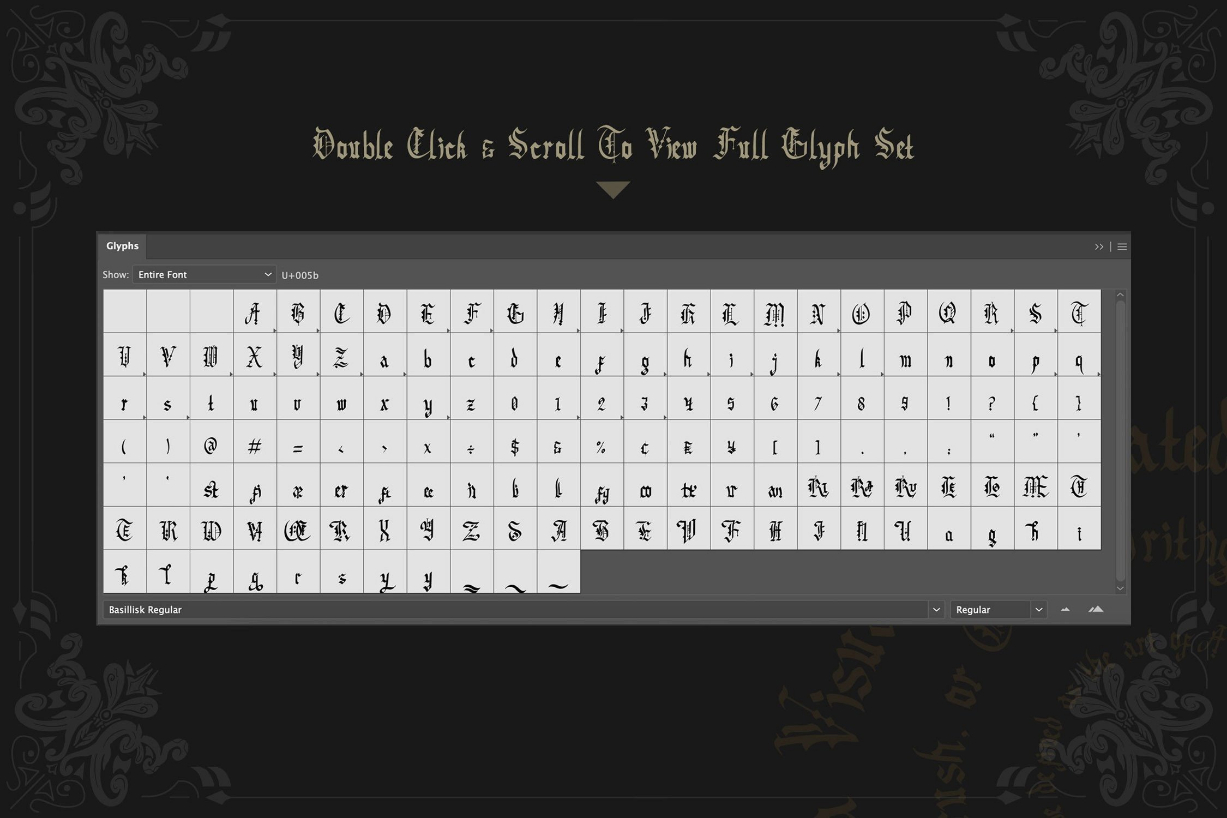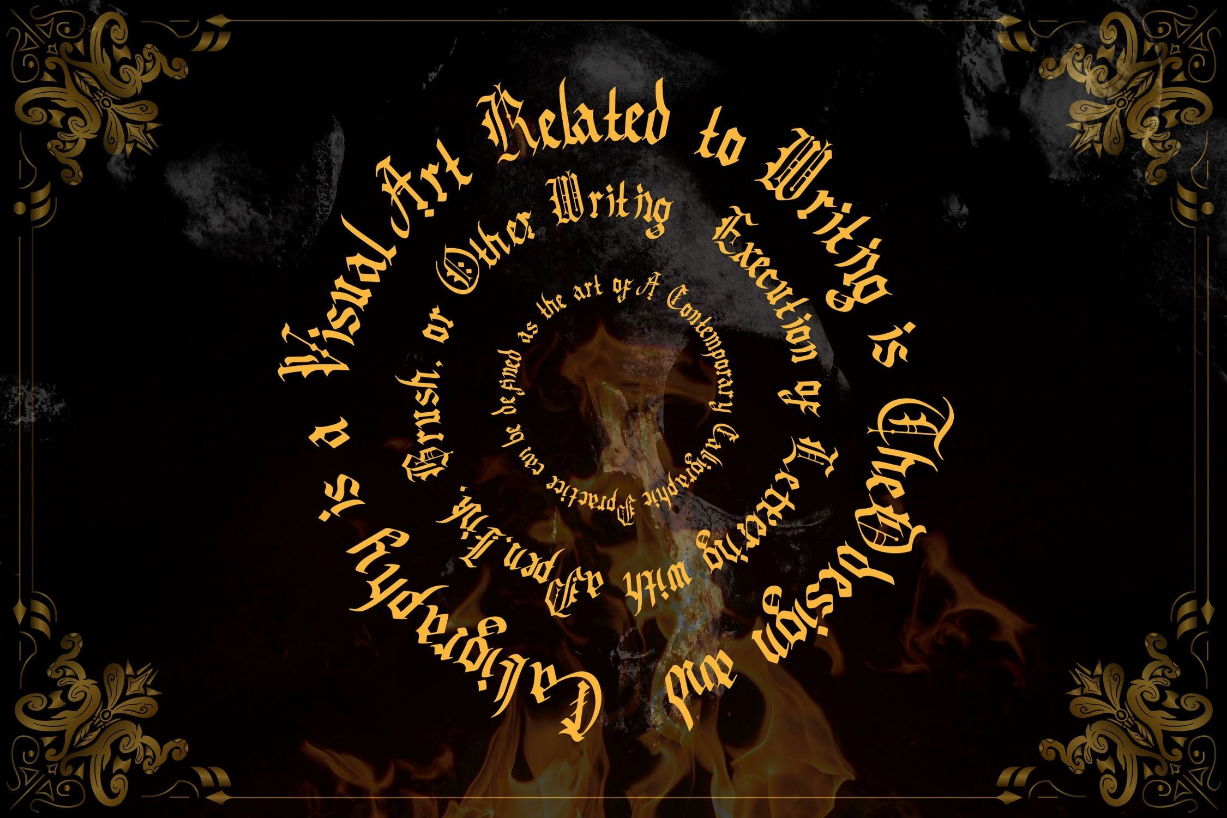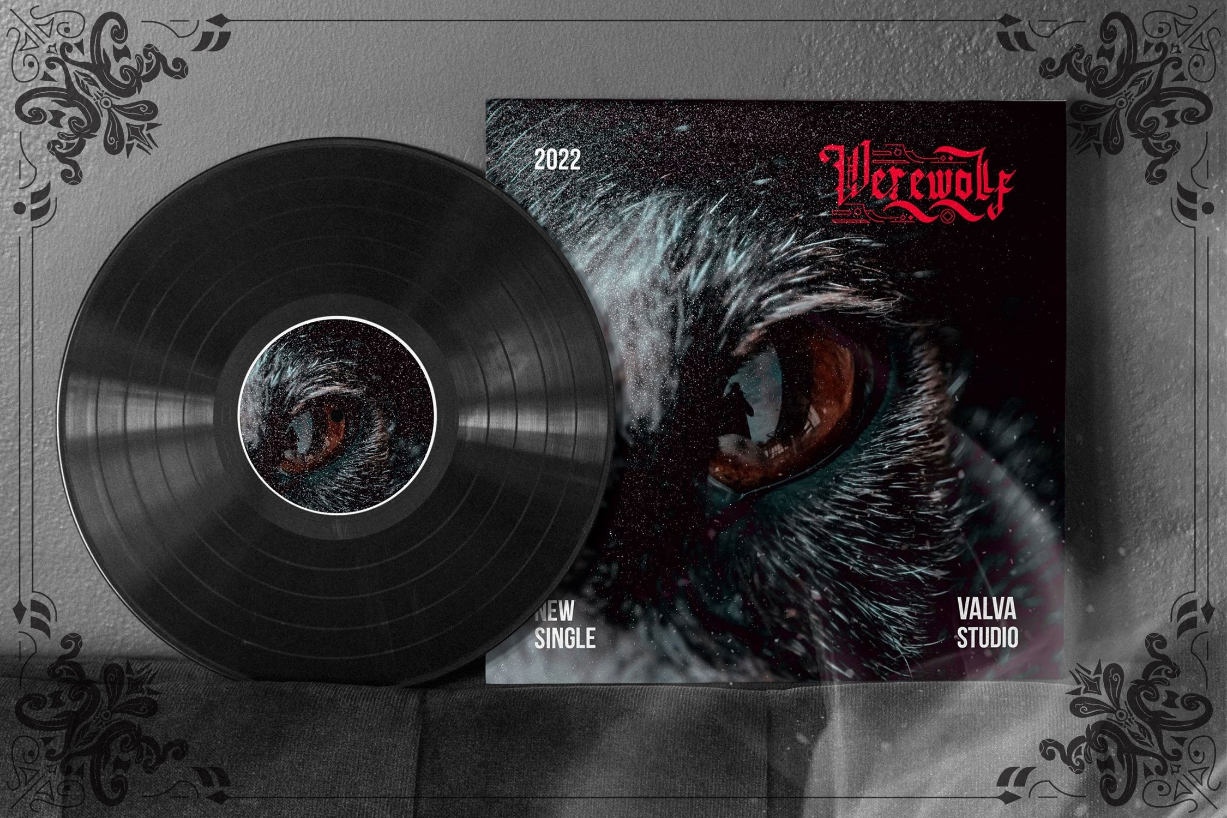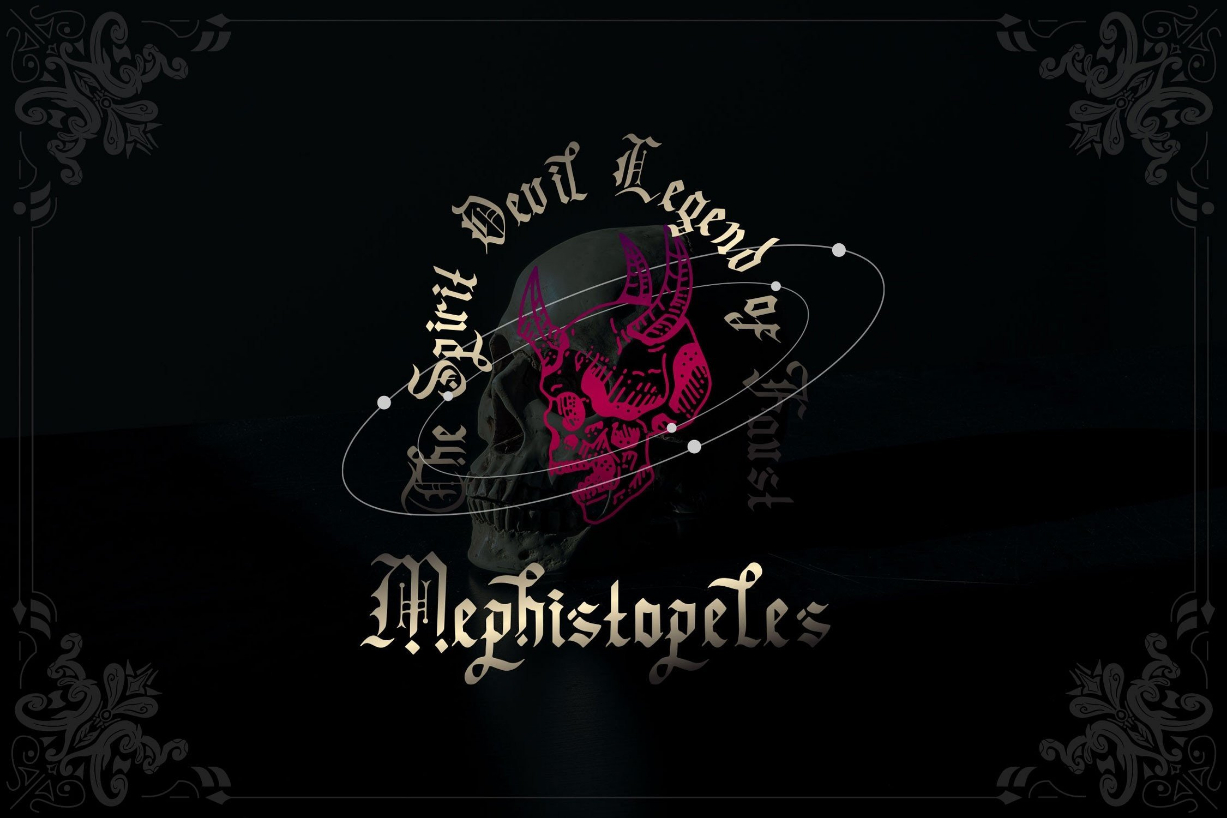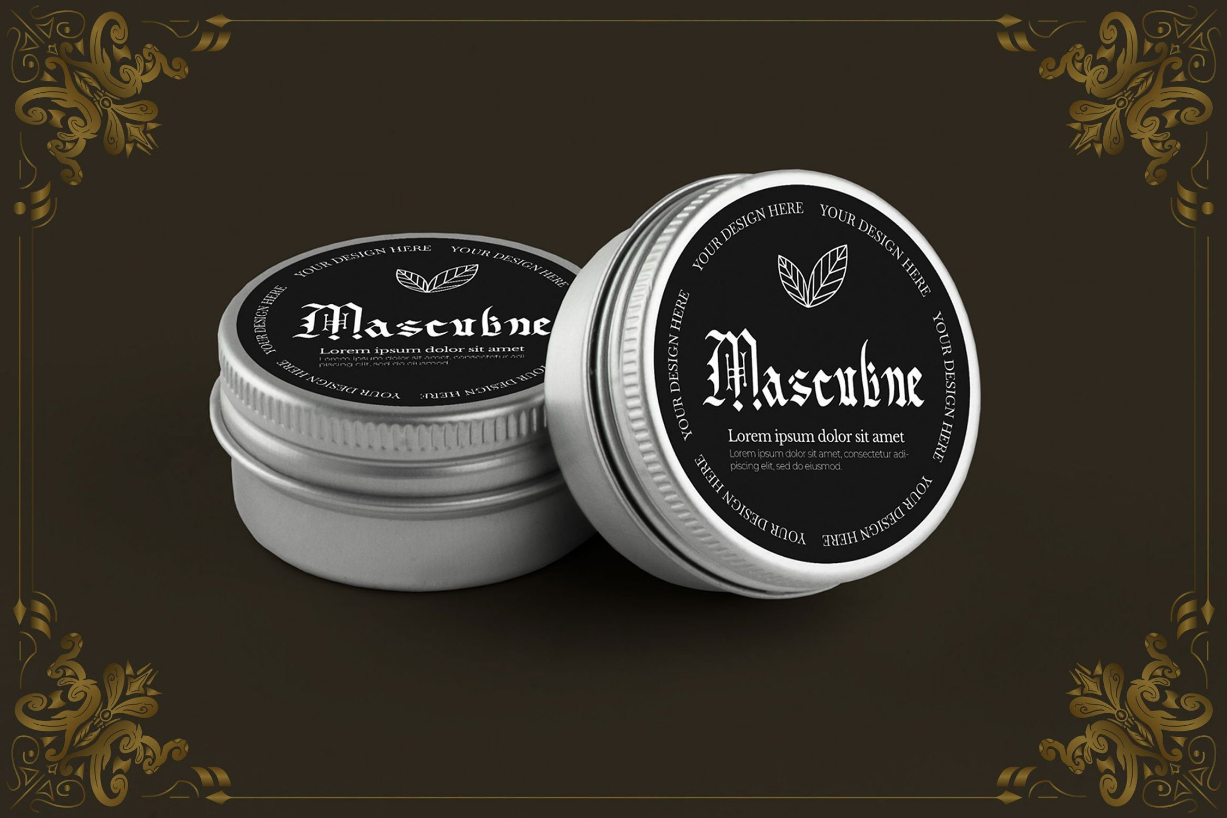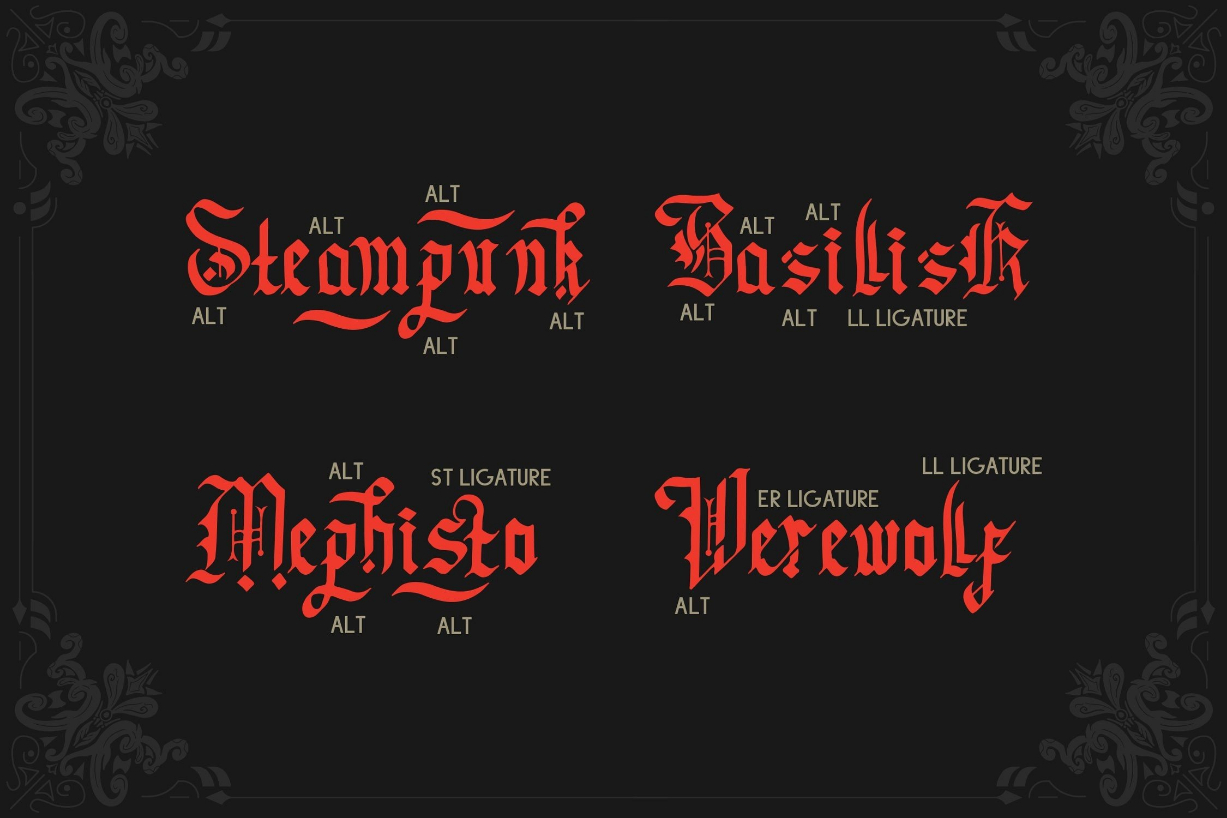
Basillisk Font
About Basillisk Font
Basillisk is a splendid blackletter font that will impress with its stylish features. Use it for product packaging, branding, or other projects that need bold and daring typography!